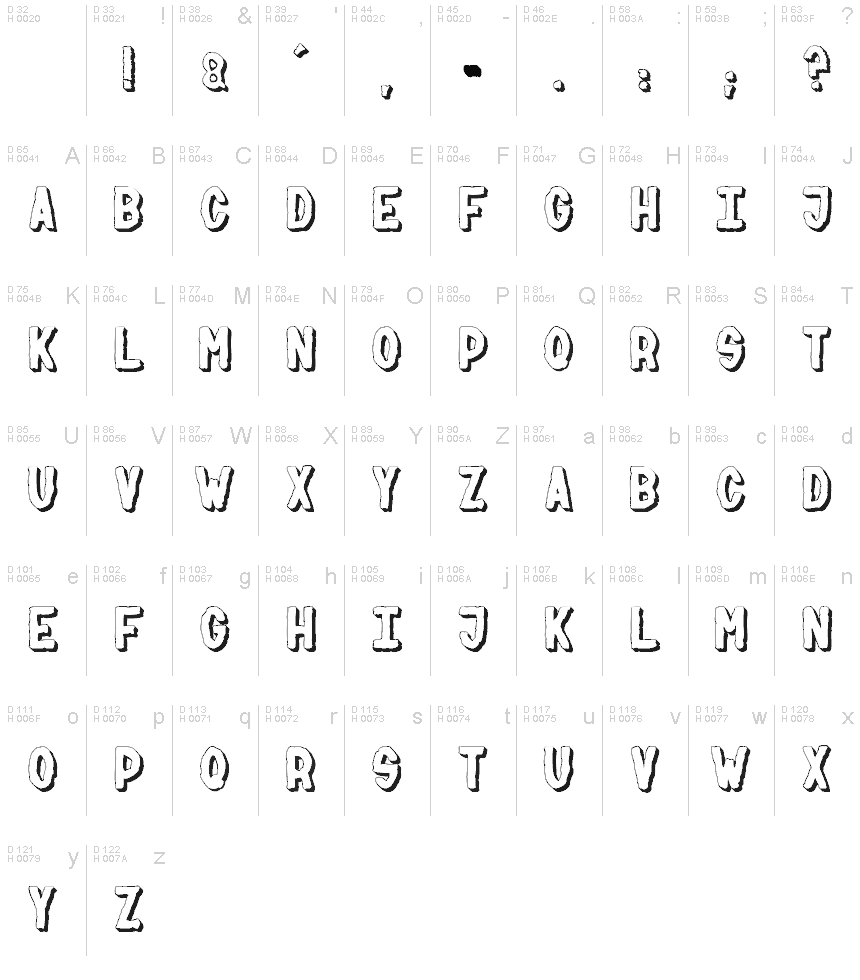
Psycho is a captivating font that exudes a sense of edgy sophistication. Designed by dcoxy Medina Gregory, this condensed typeface boasts striking, angular letterforms that command attention. The bold, jagged lines create a distinct, almost unsettling aesthetic, lending an air of mystery and intrigue. Psycho's unique style lends itself well to a range of applications, from horror-themed media to contemporary fashion and branding.
Whether used for eye-catching headlines, dramatic body text, or impactful logos, this font's distinctive character is sure to make a lasting impression.